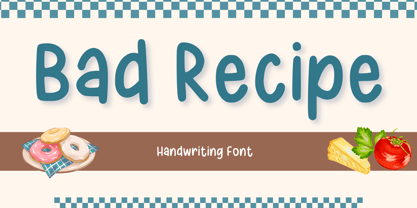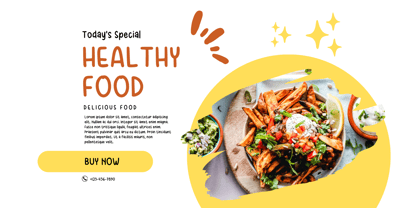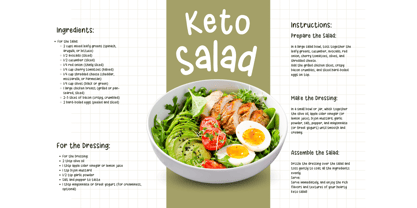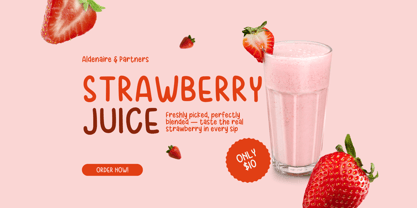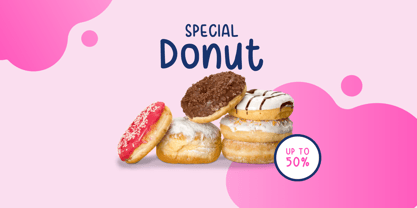
Bad Recipe
by Aisyah
The Bad Recipe Font Family was designed by Nur Aiysah Amalia and published by Aisyah. Bad Recipe contains 1 styles. More about this family
Introducing Bad Recipe, an alluring font that effortlessly transforms your ingredient designs, product promotions, and greeting cards. This captivating typeface adds a touch of charm and personality, making your content more engaging and memorable. Not just cute, Bad Recipe encapsulates creativity and joy, ensuring your designs stand out in a delightful and unique style! Whether for labeling aromatic ingredients or creating enticing advertisements, Bad Recipe captivates your audience and enhances your message. Experience the magic of Bad Recipe font and bring your artistry to life!
Designers: Nur Aiysah Amalia
Foundry: Aisyah